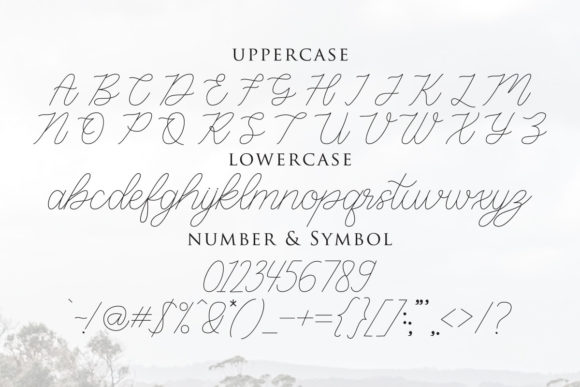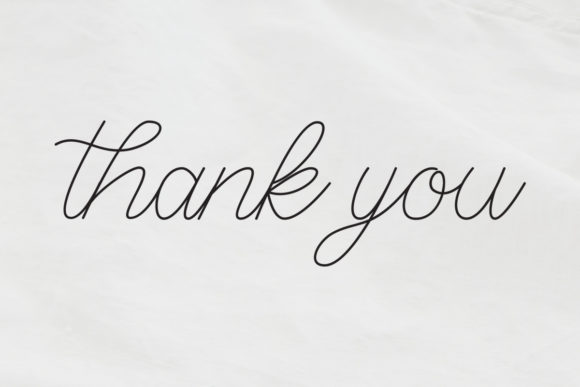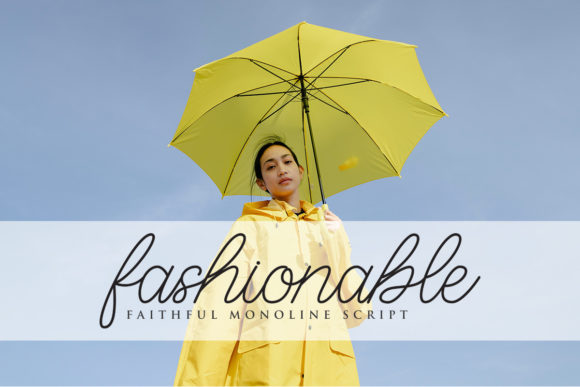
About Faithful Font
Faithful is a thin lettered and graceful script font. Fall for its ravishing style and use it to create lovely designs. Faithful is PUA encoded which means you can access all glyphs and swashes with ease!